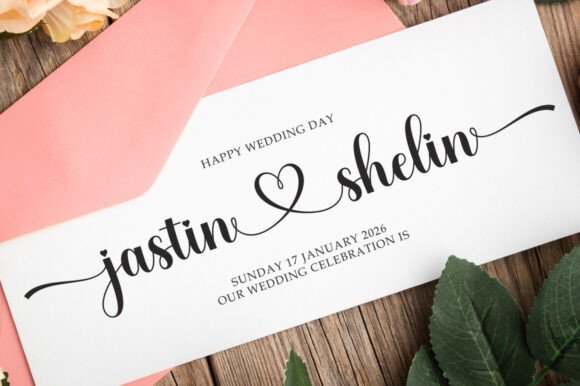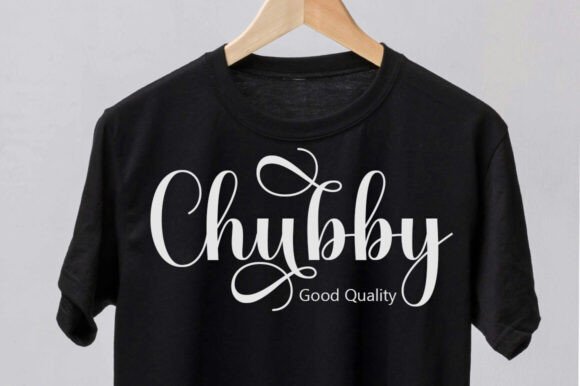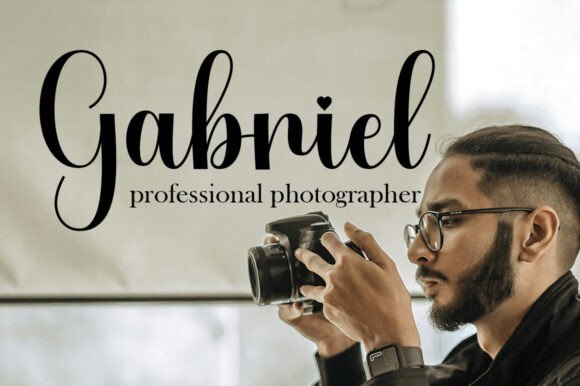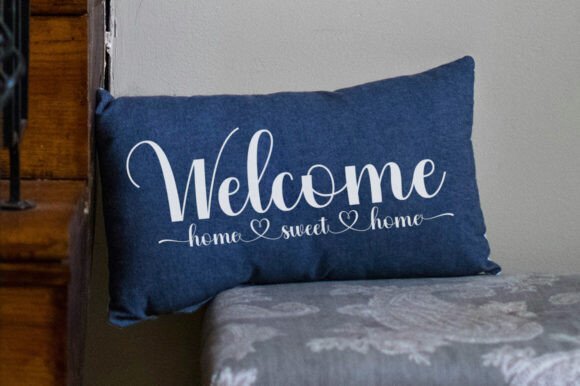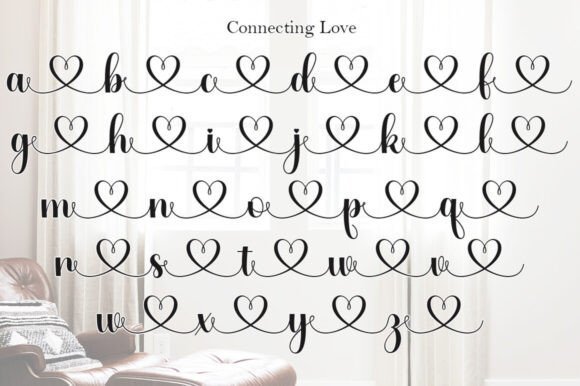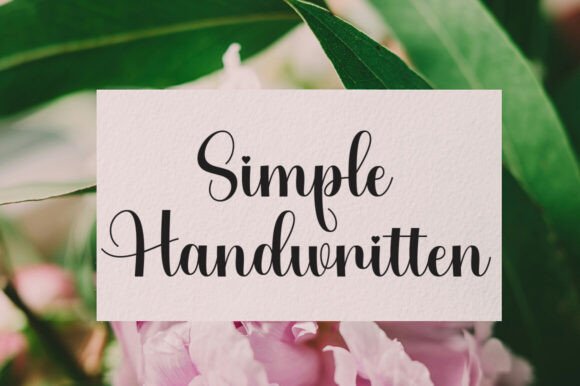
Introduction to Hisday Font
Immerse yourself in the captivating charm and elegance of Hisday, a breathtaking script font that ingeniously pays tribute to timeless calligraphy.
Skillfully handcrafted, Hisday possesses the power to take any design endeavor to unparalleled heights Perfect for branding elements, majestic titles, bespoke wedding designs, enticing invitations, distinctive signs, logo development, smart labels and more, its versatility is as impressive as its design.
Hisday Font offers exceptional quality and versatility, making it a valuable addition to your design toolkit. Whether you’re creating for personal projects or commercial use, Hisday Font delivers professional results.